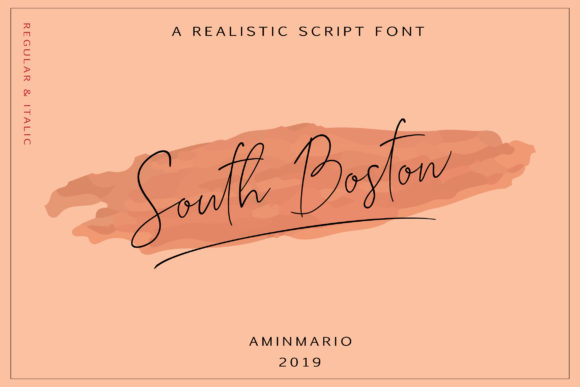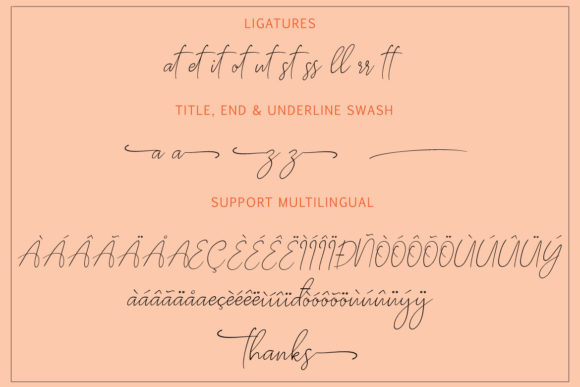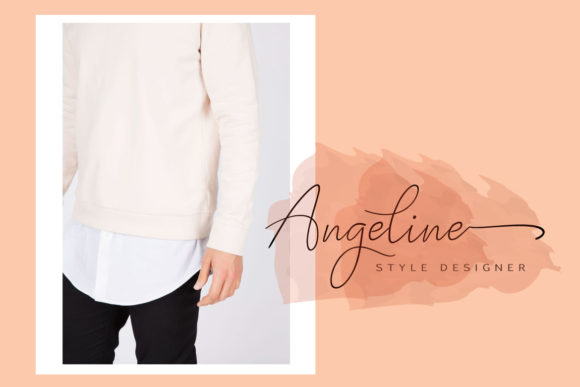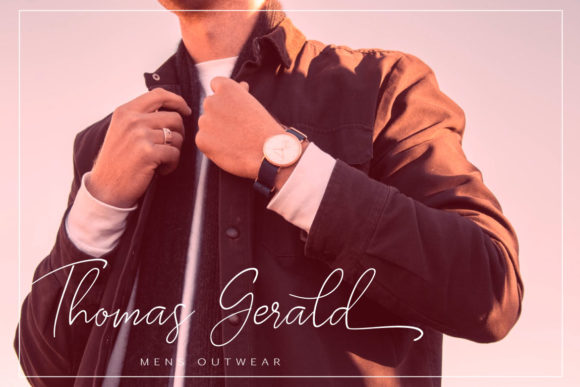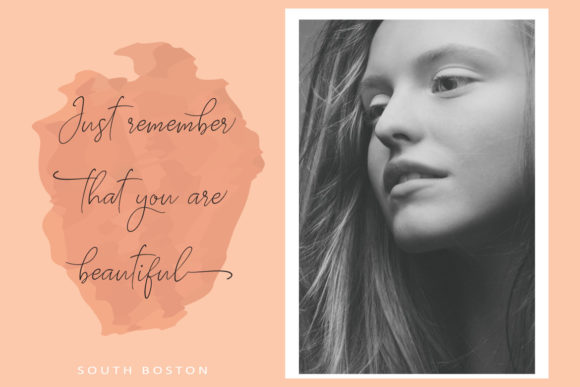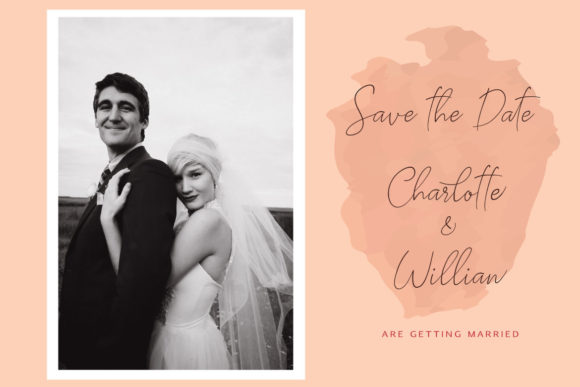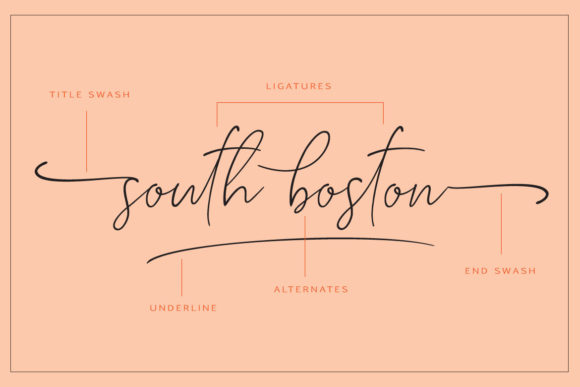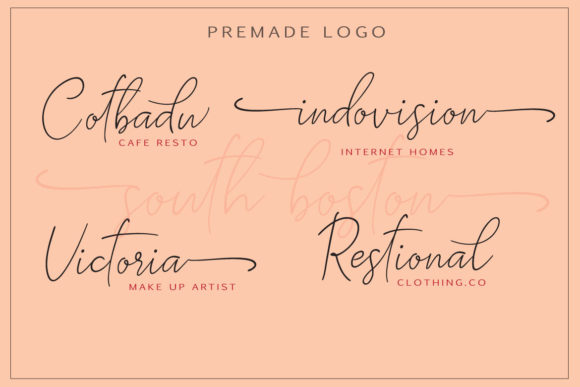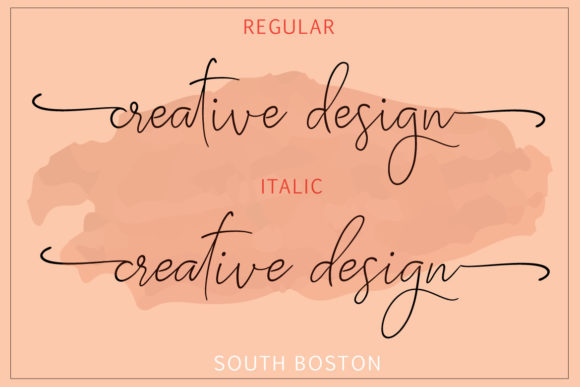
South Boston Font
South Boston is a light and authentic handwritten font with an incredibly authentic charm. It will add a sophisticated spark to any design project.